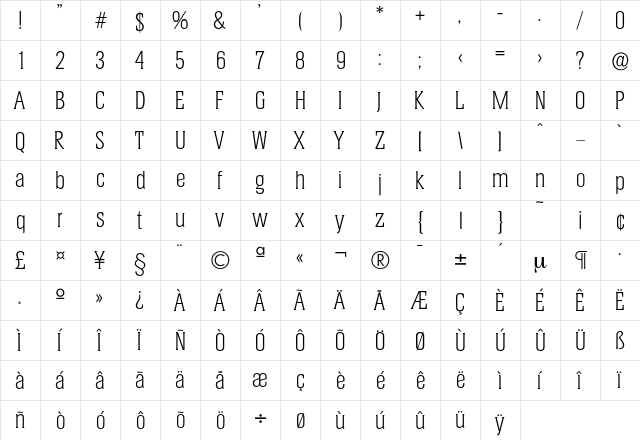
Helium-Light Regular
Design Context for Helium-Light Typeface
Helium-Light offers clean, dependable letterforms without strong stylistic allegiance, making it a practical choice for designers who need flexibility. Its slender proportions lend an understated elegance to any composition.